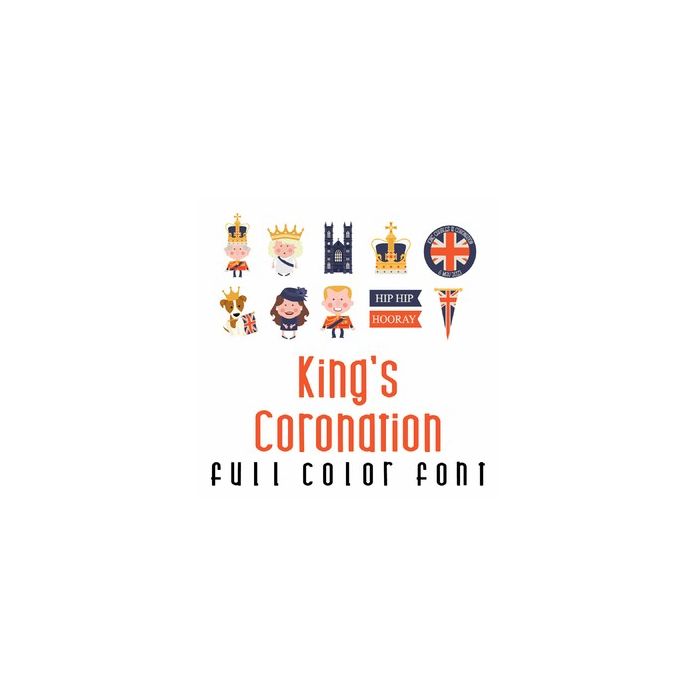
This adorable full-color doodlebat font features 32 characters and elements perfect to celebrate the upcoming Coronation. Perfect for parties, gifts, decor, planner stickers,scrapbook pages and more! Glyphs are A-Z and 0-6